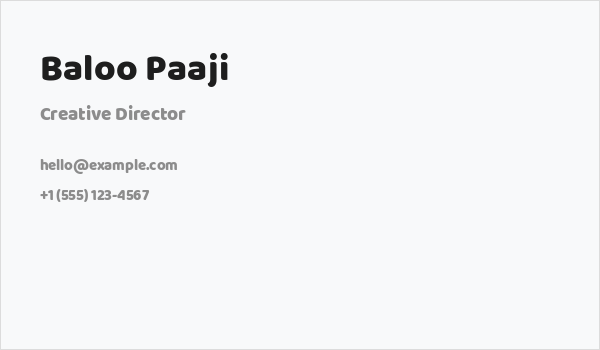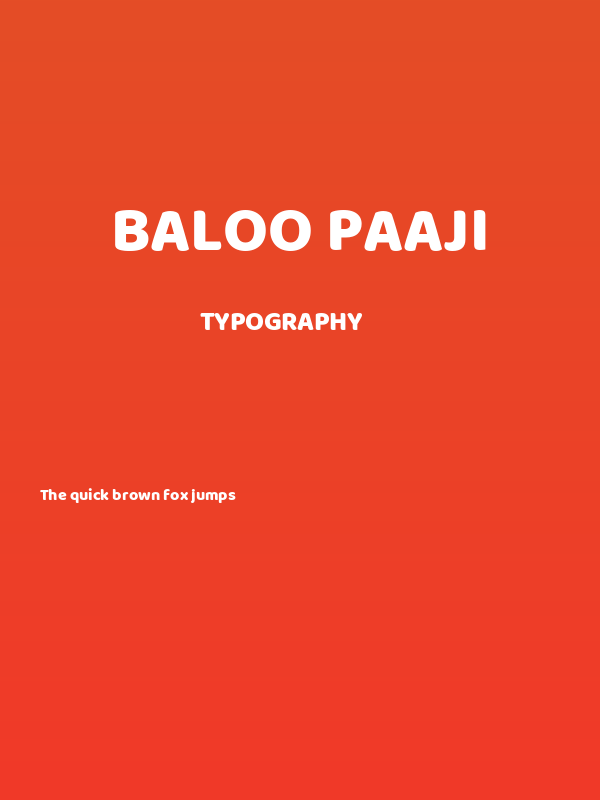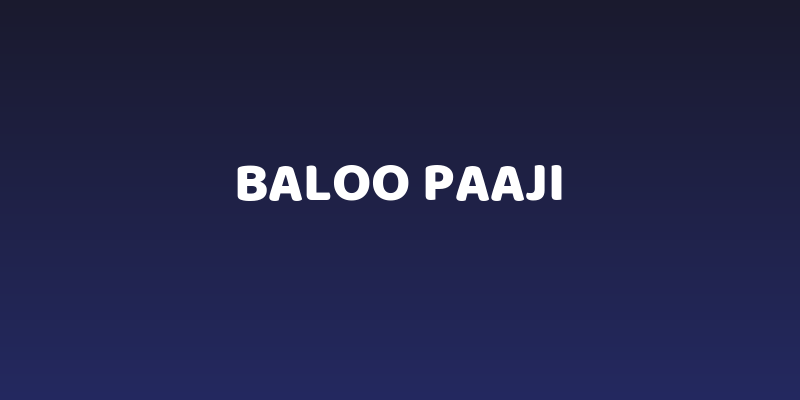
Baloo Paaji Font
Baloo Paaji Description
This font features a playful and rounded design, characterized by its bold and friendly appearance. The letters are thick and have a smooth, uniform stroke width, giving it a modern and approachable feel. The rounded edges and consistent weight across all characters contribute to its inviting and informal style. It is well-suited for projects that require a touch of whimsy and warmth, making it ideal for children's books, playful branding, or any design that aims to convey friendliness and approachability.